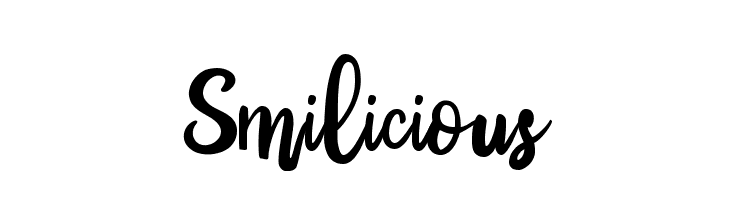
A whimsical, hand-drawn font with playful and irregular letterforms.
A vintage typewriter-style font with a handwritten, authentic feel.
A bold, flowing script font with dynamic curves and expressive style.
A bold and expressive script font with dynamic, fluid strokes.
A modern, elegant script font with flowing, connected letters.
A playful, decorative font with whimsical rabbit and flower elements.
A playful, handwritten font with smooth curves and a casual style.
A bold, playful script font with flowing, energetic letterforms.
A playful and bold font combining decorative and sans-serif elements.
A bold serif font with playful curves and strong presence.